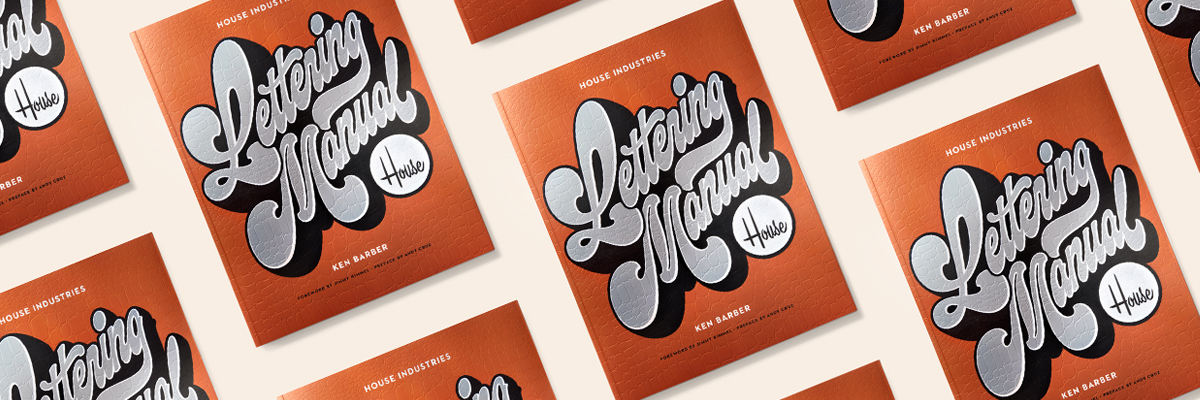
Join renowned letterer and author Ken Barber as he shares a behind-the-scenes look at the new House Industries Lettering Manual. For over 25 years, the acclaimed design agency and font foundry has built a reputation on providing a distinctive voice to companies and brands around the world through expressive logos and wordmarks. In his revealing new handbook, the studio’s Chief Lettering Officer unveils the underlying tactics and techniques that form the core of House’s eclectic creative process.
During this visually-engaging and entertaining presentation, Ken will highlight case studies from the Lettering Manual, including work for luxury brand Hermès, director JJ Abrams, and broadway musical The Cher Show. The author will also share never-before-seen photo outtakes and sketches, and explain how on earth late-night TV host and comedian Jimmy Kimmel came to write the foreword.
Ken Barber is a letterer, type designer, author, and instructor. He blames Don Martin comics, Santa Cruz skateboard graphics, and speed metal logos for his obsession with letterforms. For over 25 years, Ken has produced distinctive logos for global brands and created award-winning fonts. His work is part of the Cooper-Hewitt National Design Museum and the Henry Ford Museum of American Innovation. Ken is the type director and studio letterer at House Industries. Author of three books, his award-winning Lettering Manual was released in 2020.